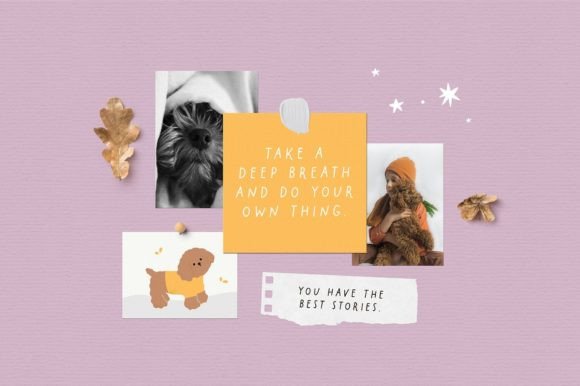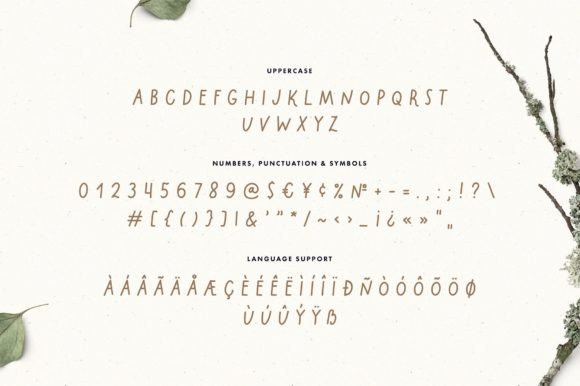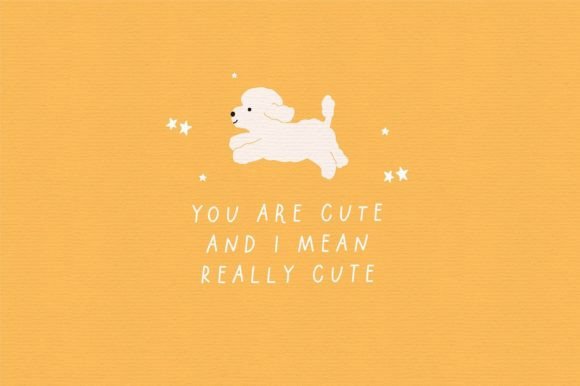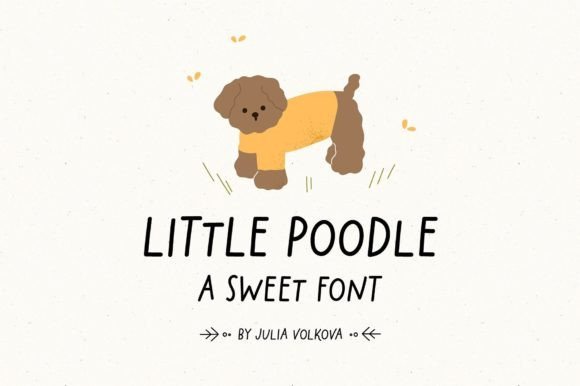
Introduction to Little Poodle Font
Little Poodle is a playful and stylish font with a youthful spirit.
Is suitable for both professional-looking projects such as branding designs, labels, websites, and business cards as well as casual designs like packaging, posters, flyers, quotes, social media posts, invitations, special occasions cards, etc This font is PUA encoded which means you can access all of the amazing glyphs and ligatures with ease .
Key Features of Little Poodle Font